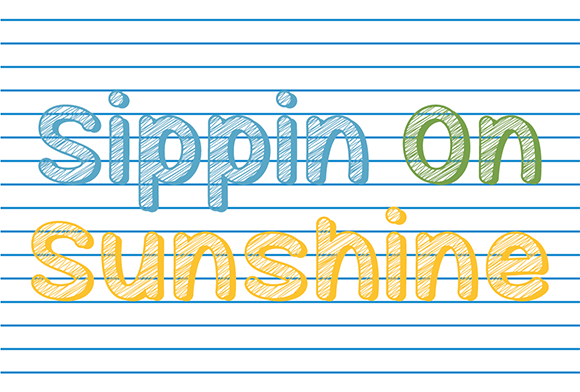
HomeScript FontsSippin on Sunshine Font Script Fonts Sippin on Sunshine Font FacebookXPinterestWhatsApp About Sippin on Sunshine Font Sippin On Sunshine is a fun, sketch font that is perfect for your design and craft projects! DOWNLOAD ON CREATIVE FABRICAThis font is sold and delivered by Creative Fabrica. Font Canyon may earn a commission if you buy through this link. People also explored Ralalla Font Adorable Font Tinna Bell Font Daniella Font Frisha Font Dormotta Font Louisendle Font Bolling Font Brittaney Font 295 0 TagsSippin on Sunshine Font Previous articleWedding Bells FontNext articleUnicorns Are Awesome Font LEAVE A REPLY Cancel reply Comment: Please enter your comment! Name:* Please enter your name here Email:* You have entered an incorrect email address! Please enter your email address here Website: Save my name, email, and website in this browser for the next time I comment. Personal Use Free Midnight Show Personal Use Free Read more about this font The Moshbusther Personal Use Free Read more about this font Dandelions Bloom Personal Use Free Read more about this font Coolvetica Font Personal Use Free Read more about this font BLOG Best Fonts for T-Shirt Design – Top 2025 Picks In 2025, t-shirt design has become more than just fashion—it's a form of self-expression. Whether you're... Best Fonts for YouTube Videos: Make Your Thumbnails Stand Out Using Fonts in Digital Marketing: Tips to Strengthen Your Brand Identity Fonts That Capture the Spirit of New York City